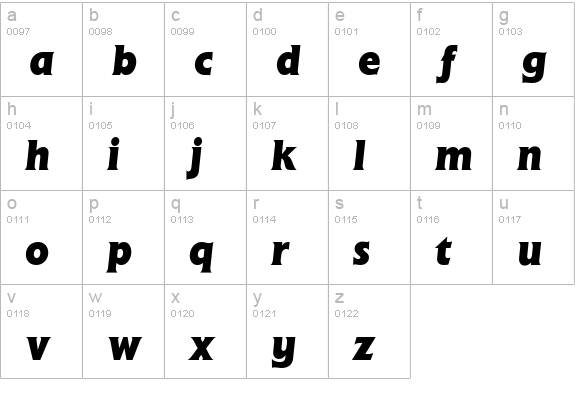
Flare Gothic BOLDITALIC Font Details
Introducing Flare Gothic BOLDITALIC font - a striking and bold typeface designed to make a statement with its unique flair and edgy vibe. The combination of sharp angles and intricate details gives this font a modern and sophisticated look that is sure to captivate any audience. Perfect for creating eye-catching headlines, logos, posters, and more, Flare Gothic BOLDITALIC font exudes confidence and style. Its bold and italicized design adds a touch of drama and elegance to any project, making it stand out from the crowd. Best of all, Flare Gothic BOLDITALIC font is available for free download at FontsMarket.com, allowing you to unleash your creativity without any cost. Don't miss out on this opportunity to elevate your designs with this stunning and versatile typeface. Download Flare Gothic BOLDITALIC font today and let your creativity shine!